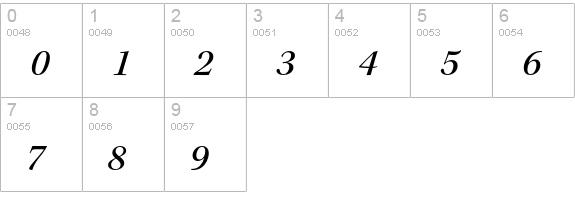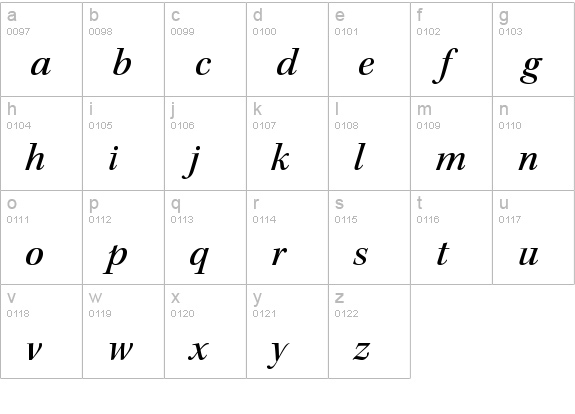
Kepler Std Medium Italic Subhead Font Details
Kepler Std Medium Italic Subhead is a balanced, medium-weight, italic variant in the Kepler typeface family \xE2\x80\x94 well suited to sub-headlines, navigation, and balanced editorial work.
Kepler Std Medium Italic Subhead is a stunning font that effortlessly combines elegance with readability. Its medium weight and subtle slant create a sense of sophistication, making it perfect for subheadings and titles in various design projects. This font features a harmonious balance between its thick and thin strokes, resulting in a visually pleasing aesthetic that captures attention without overpowering the content. The italic style adds a touch of dynamism and flair, making it an excellent choice for conveying a sense of movement or emphasis. Kepler Std Medium Italic Subhead is versatile and adaptable, making it suitable for a wide range of applications, including editorial design, branding, advertising, and more. Its clean lines and well-defined letterforms ensure clarity and legibility even at smaller sizes, making it an ideal choice for both print and digital media. One of the best things about Kepler Std Medium Italic Subhead is that it is freely available to download at FontsMarket.com. This means that you can easily obtain this exquisite font without any cost, making it an excellent option for budget-conscious designers or anyone looking to enhance their creative projects with a high-quality typeface. In conclusion, Kepler Std Medium Italic Subhead is a captivating and versatile font that effortlessly combines elegance, readability, and a touch of dynamism. Whether you're designing an editorial layout, creating a brand identity, or working on any other project that requires impactful typography, this font will undoubtedly elevate your design. Don't miss the opportunity to download it for free at FontsMarket.com and unlock the full potential of your creative endeavors.